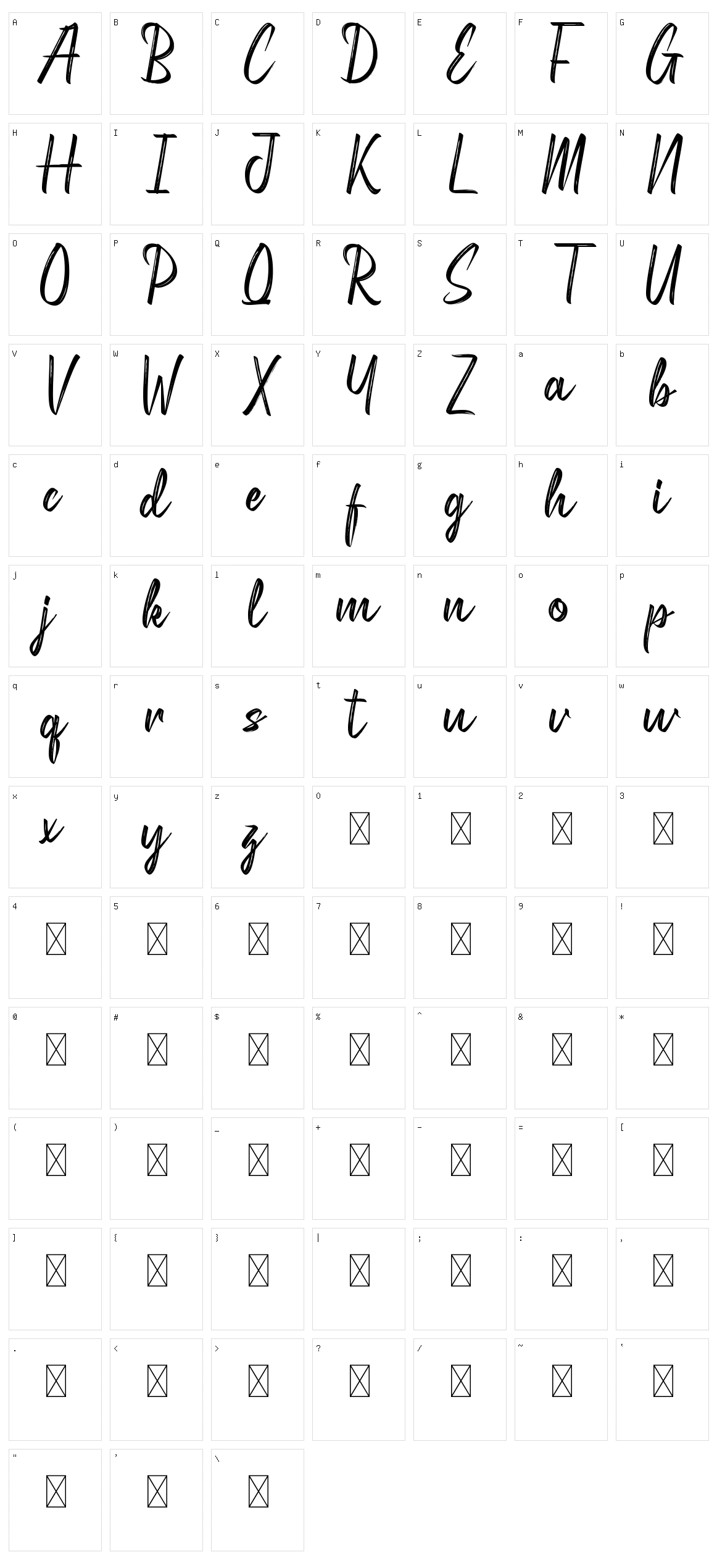
The free font High Hill is carefully designed by RaisProject, showcasing a thoughtful balance of creativity and usability and falls under the Script font style. When you download the ZIP file, it contains only 82.68 KB of font files, making it lightweight and quick to download. Please review the license details below to understand permitted usage and distribution rights. If license information is not available, we recommend using this font for personal projects only or contacting the author directly for commercial usage permissions.